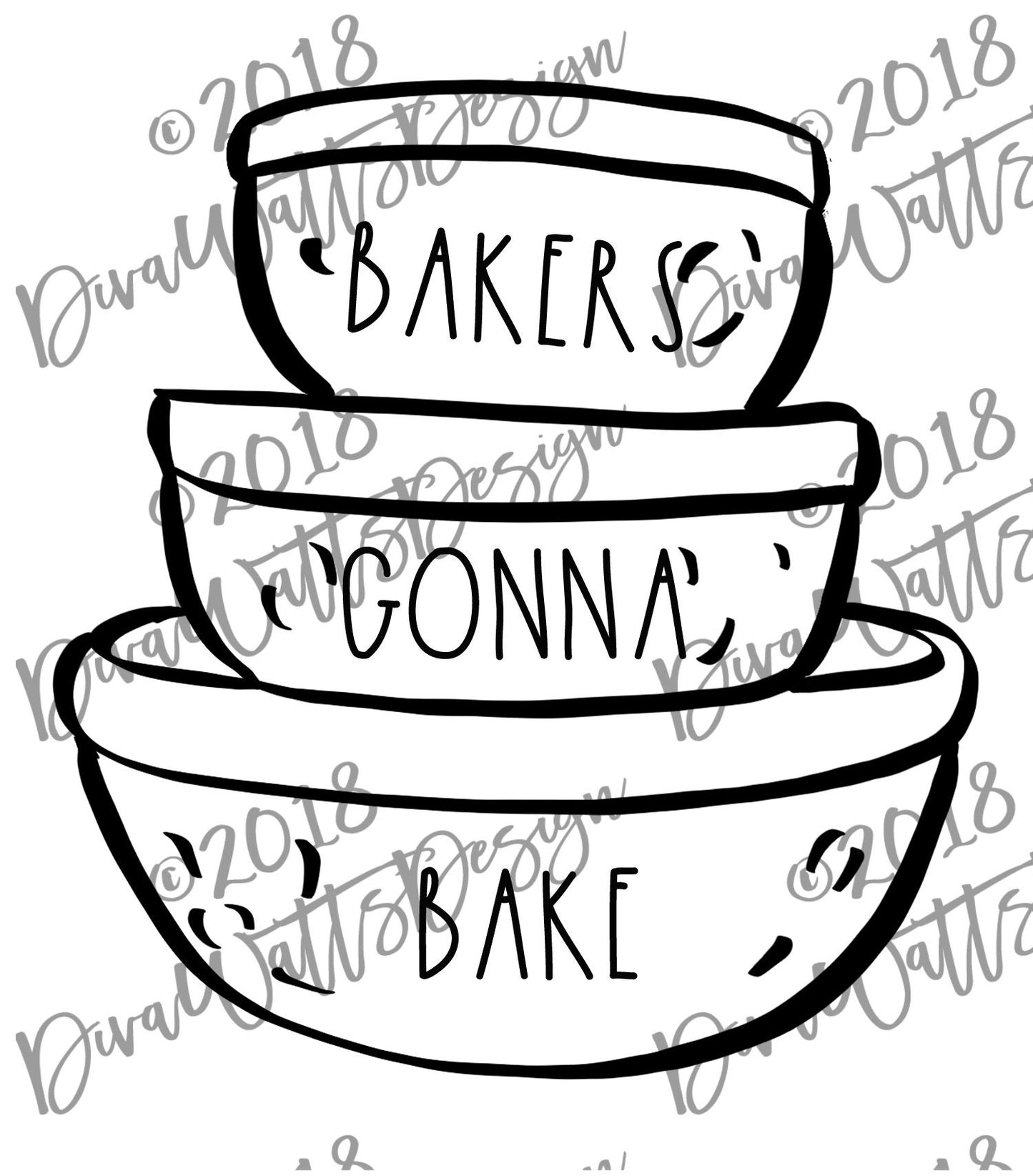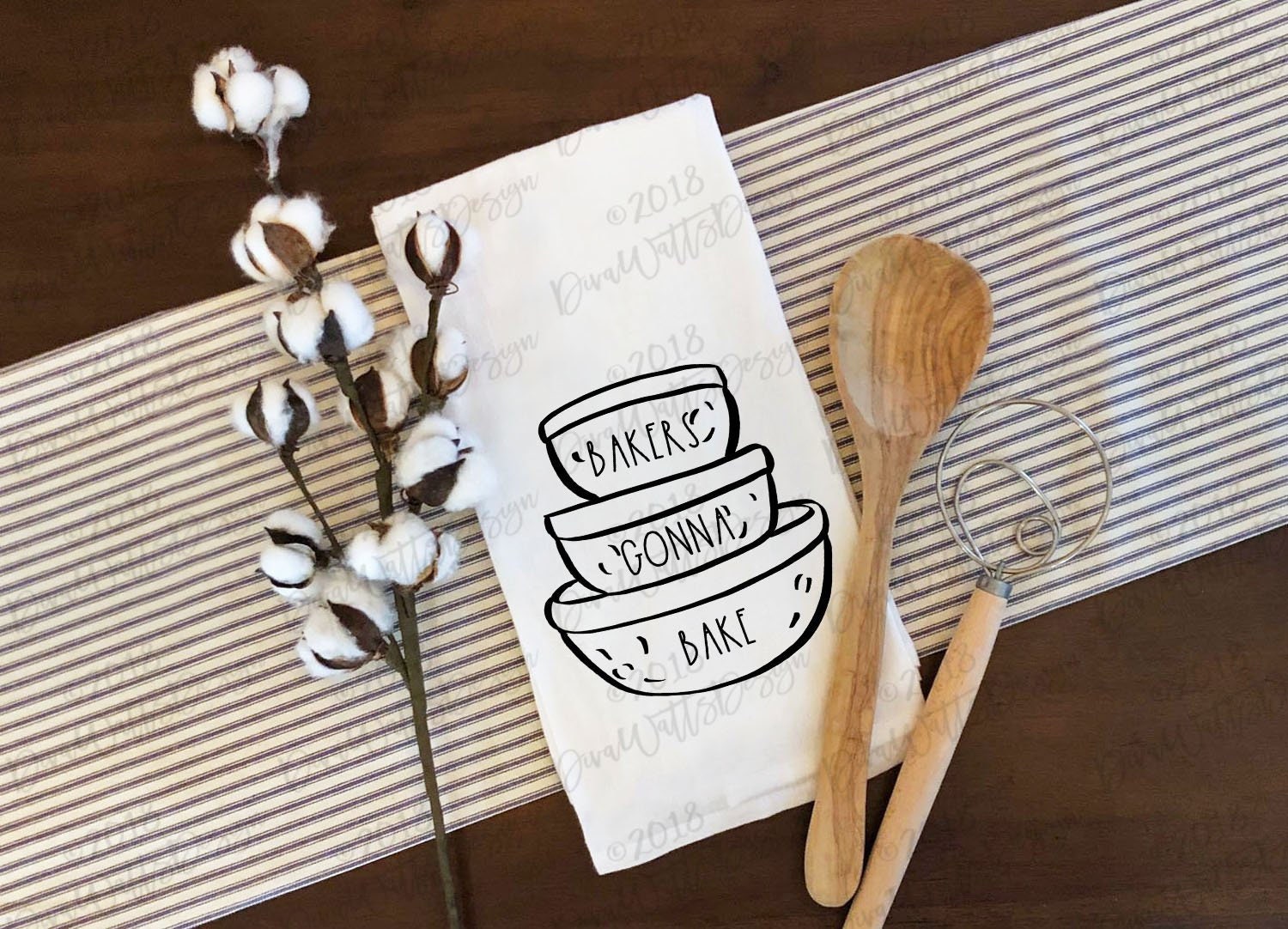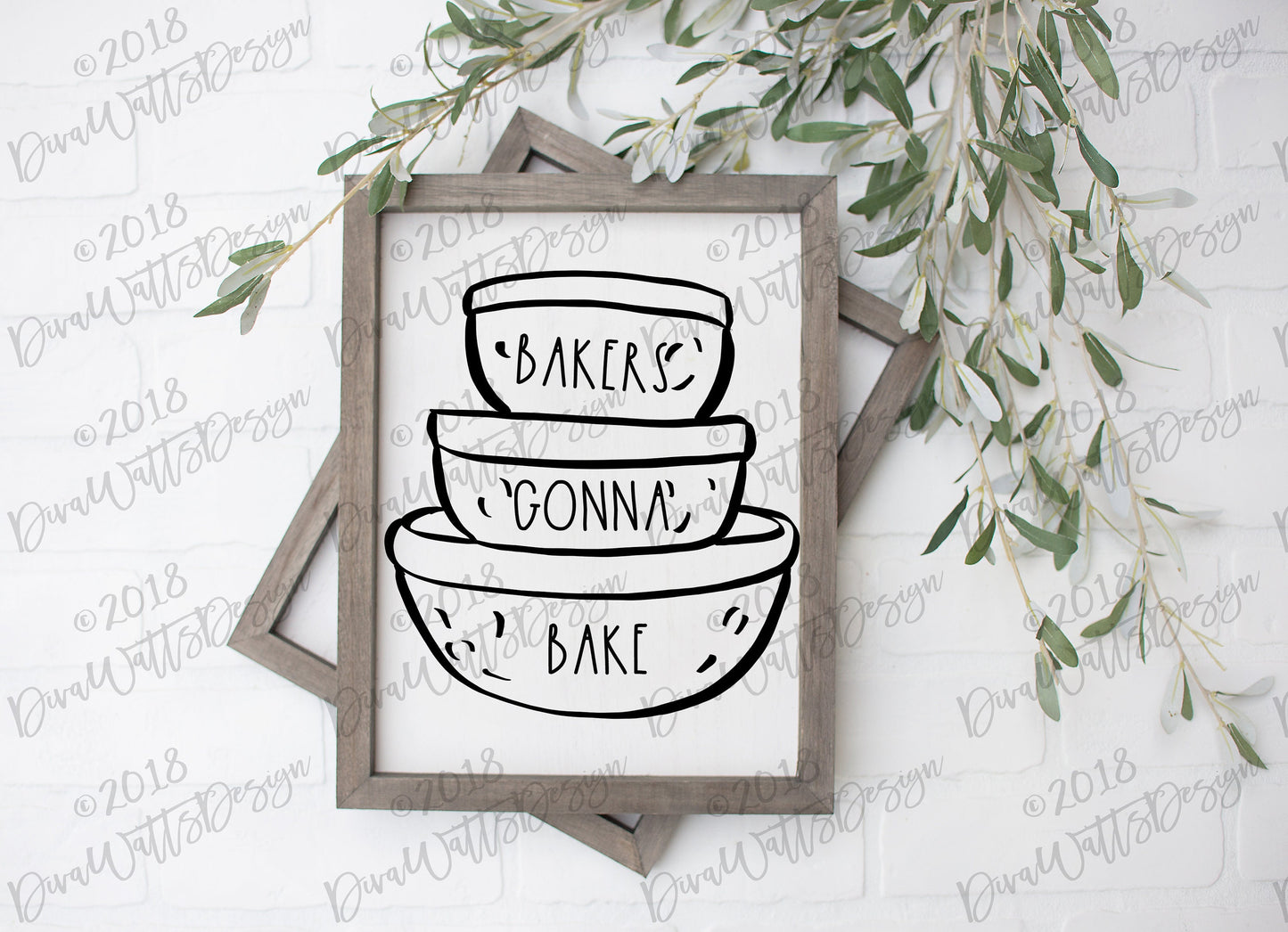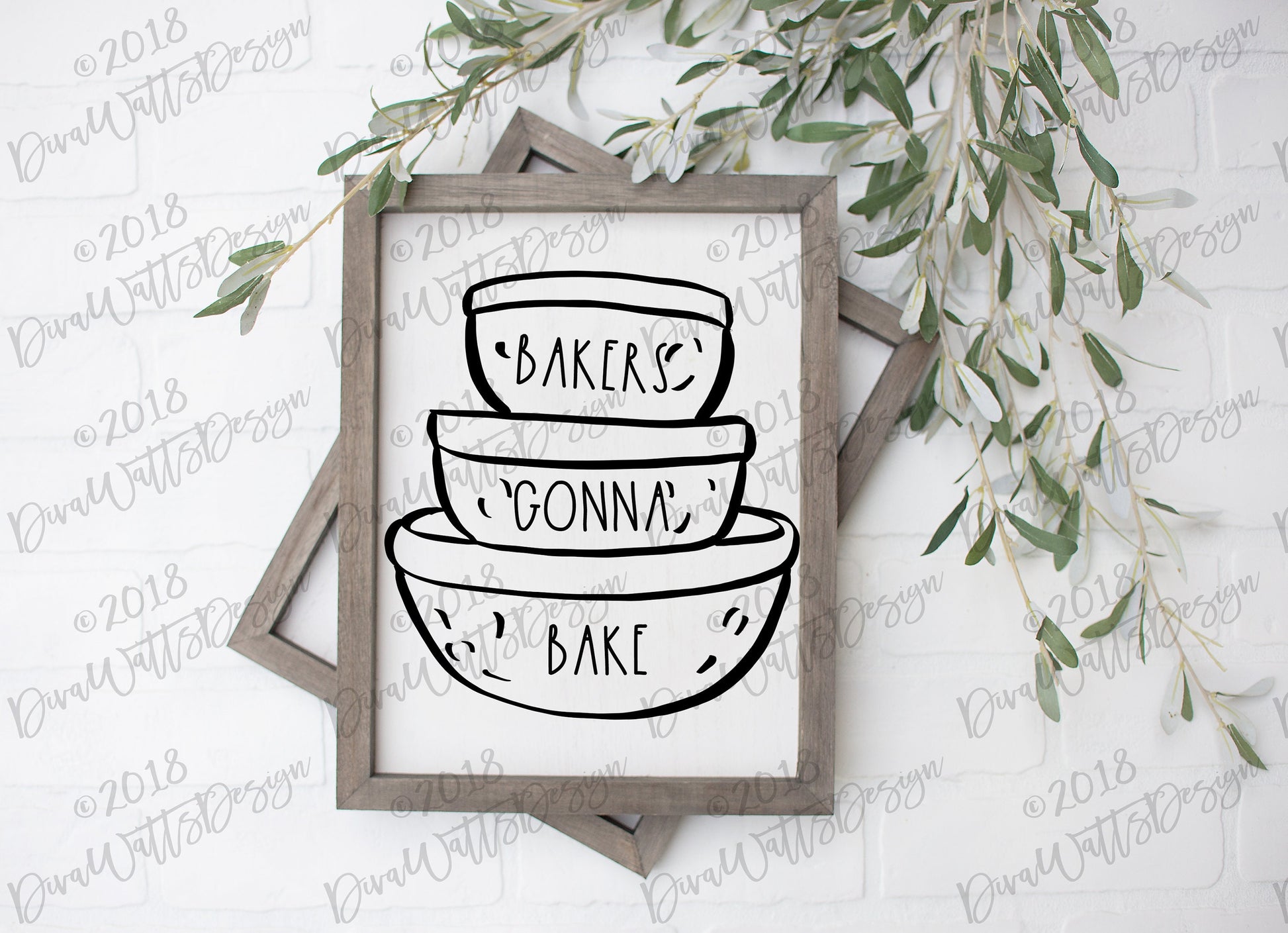
SVG Lumpy Mixing Bowls with Skinny Font | Farmhouse Kitchen Decor | Humor | Cuttable Cricut | Tea Towel | Shirt | Sign | Instant Download
Bakers Gonna Bake artwork and lettering featuring the words using a skinny font to give the minimalist look. Ready for you to download and create signs, shirts, tea towels. The possibilities are endless! SVG and PNG files included.